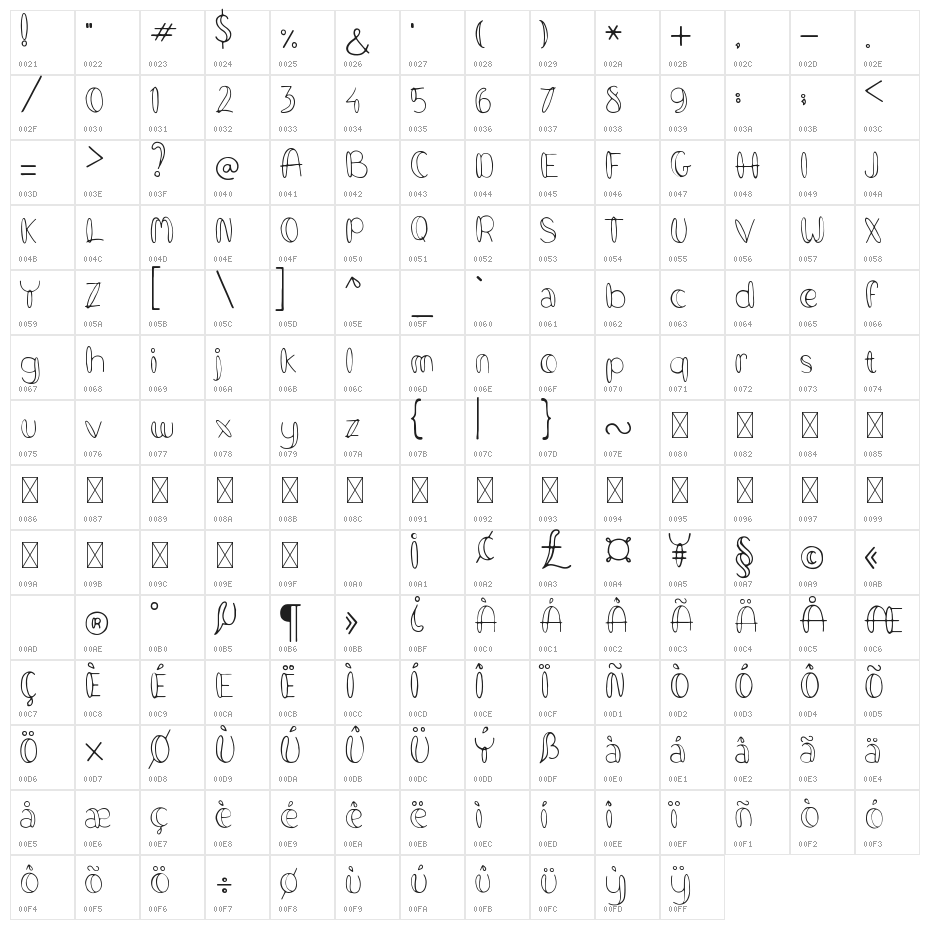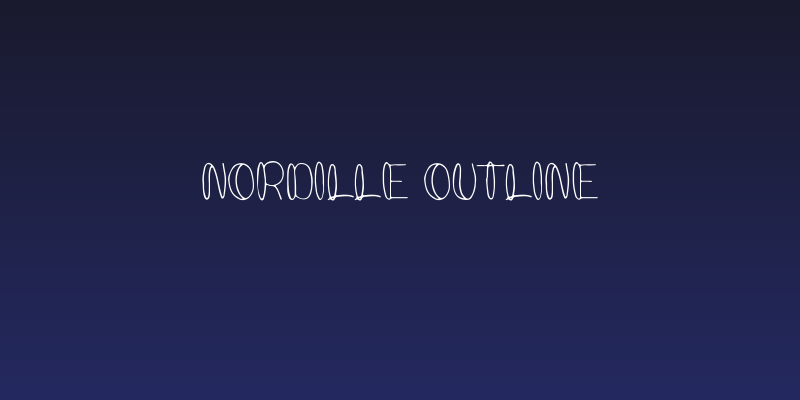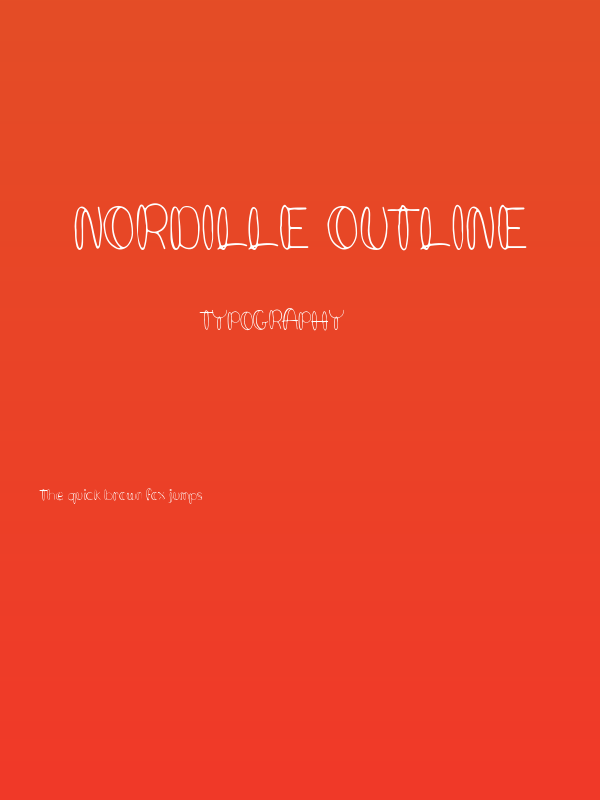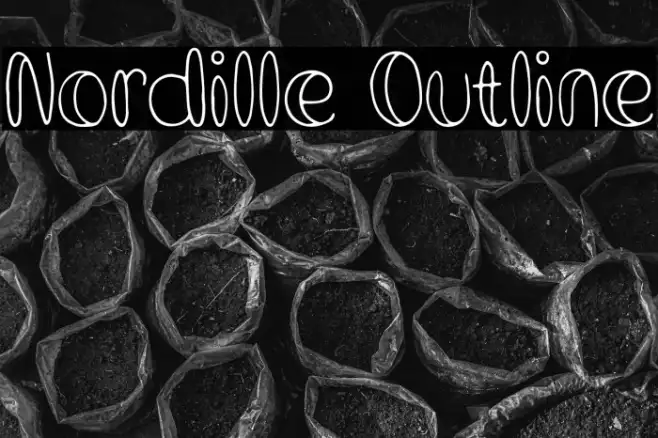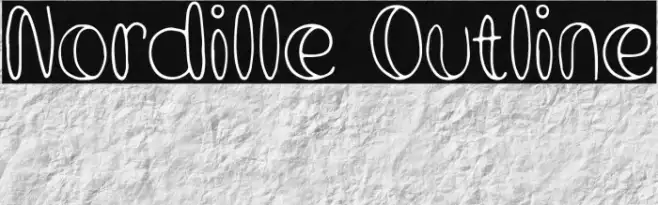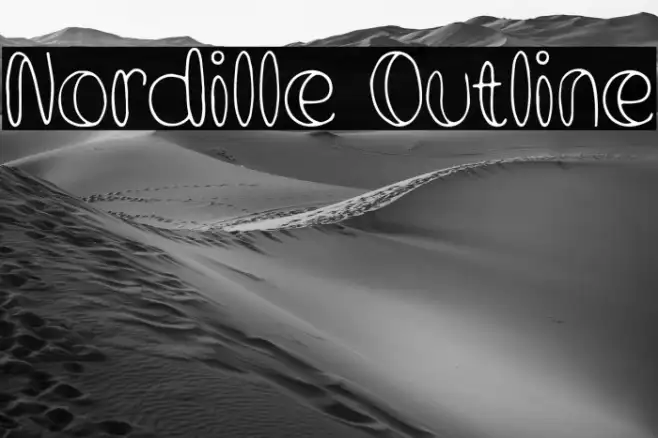
Nordille Outline Font
Nordille Outline Description
This font features a unique outline style that gives it a playful and artistic appearance. The characters are crafted with a continuous, flowing line that forms the outer edges, creating a hollow effect. The uppercase letters have a whimsical, almost hand-drawn quality, while the lowercase letters maintain a consistent style, enhancing readability. The numerals and special characters follow the same outline design, ensuring a cohesive look across all text elements. This font's distinct style makes it stand out, offering a creative touch to any project.